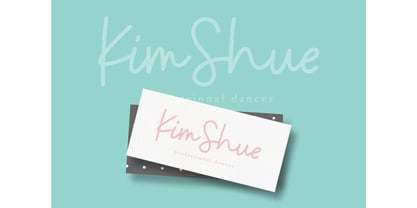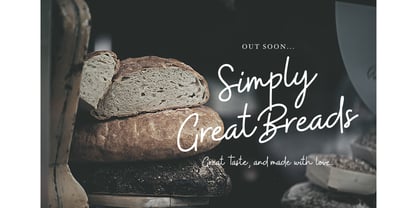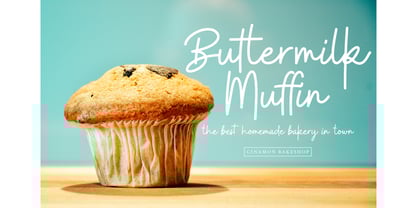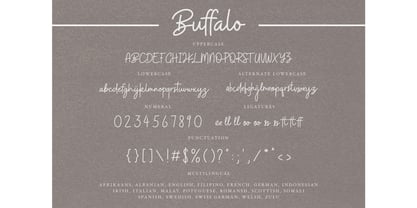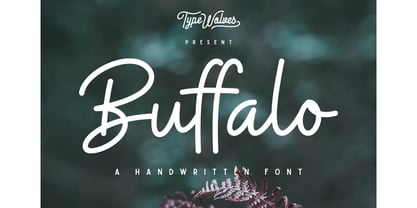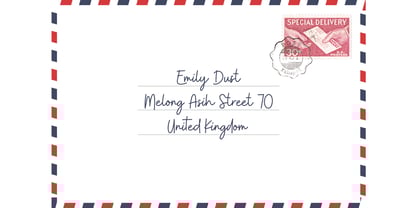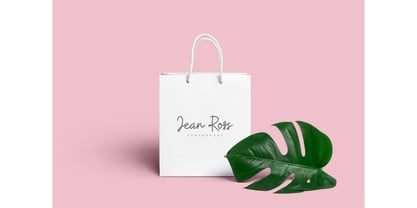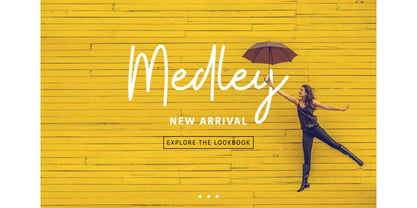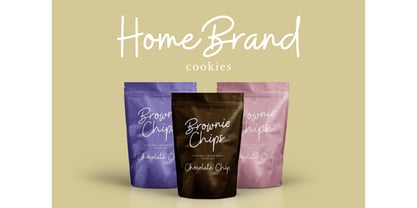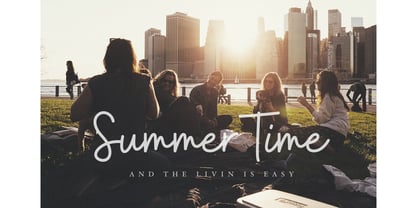
Buffalo
by Angga Mahardika
The Buffalo Font Family was designed by Angga Mahardika and published by Angga Mahardika. Buffalo contains 1 styles.
Buffalo perfect for greeting cards, magazine, branding, social media, print, packaging, and many more.
Hi, Buffalo have an alternate character from a-z, this font is very easy and simple for purposes of your design project. Buffalo have two sets of lowercase letters, uppercase letters, punctuation, numbers, and multilingual.